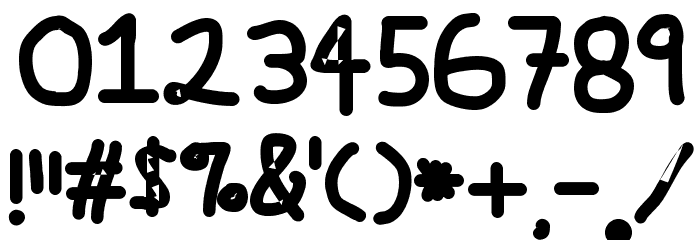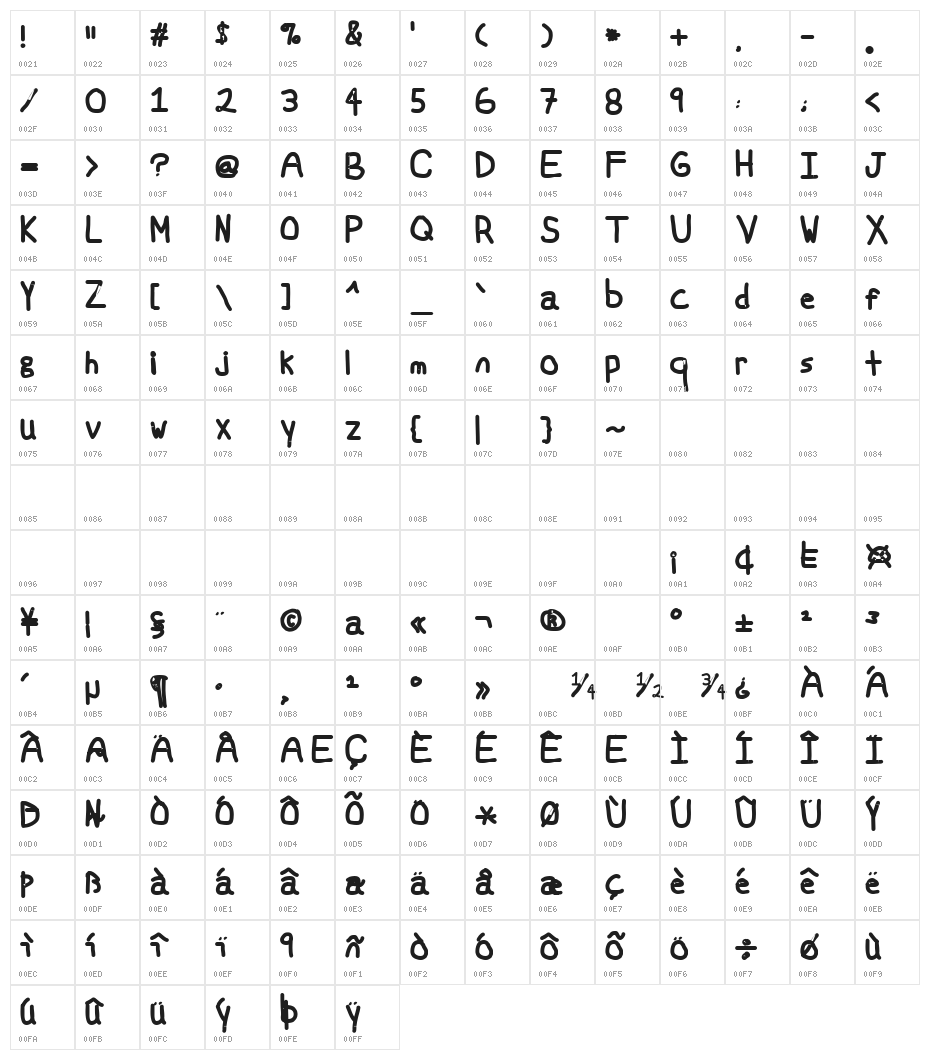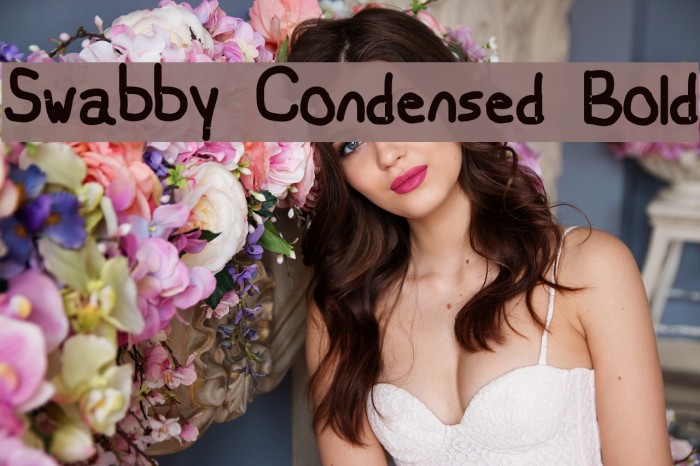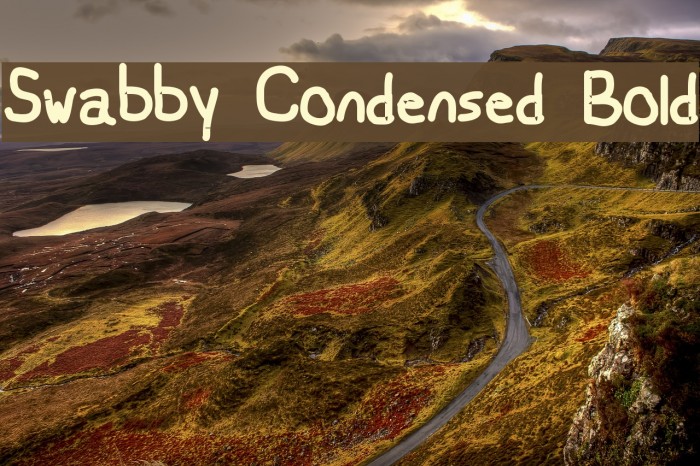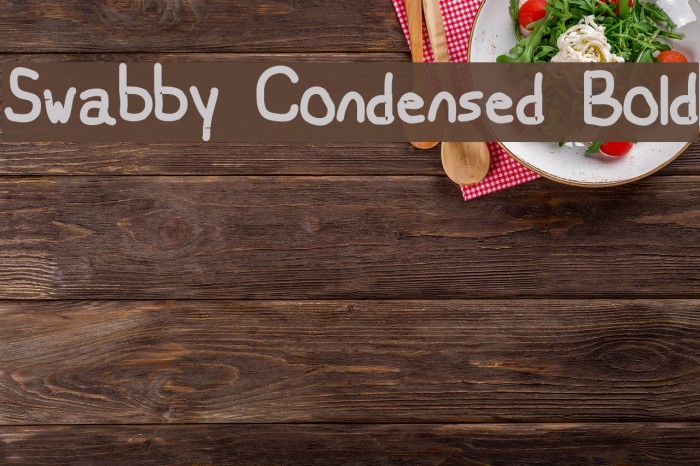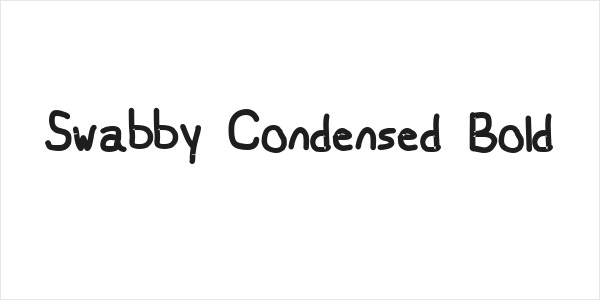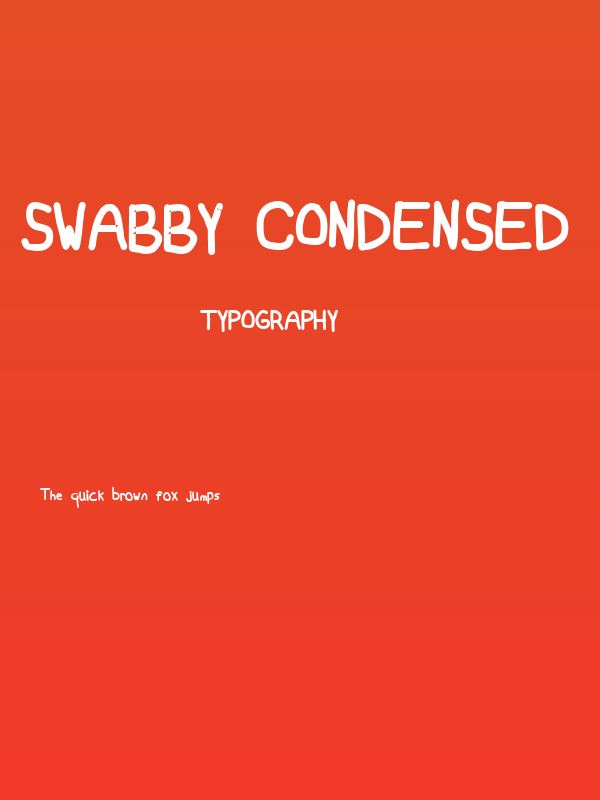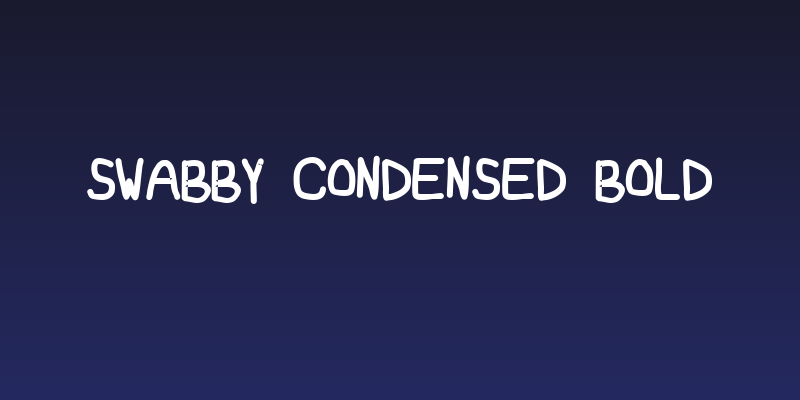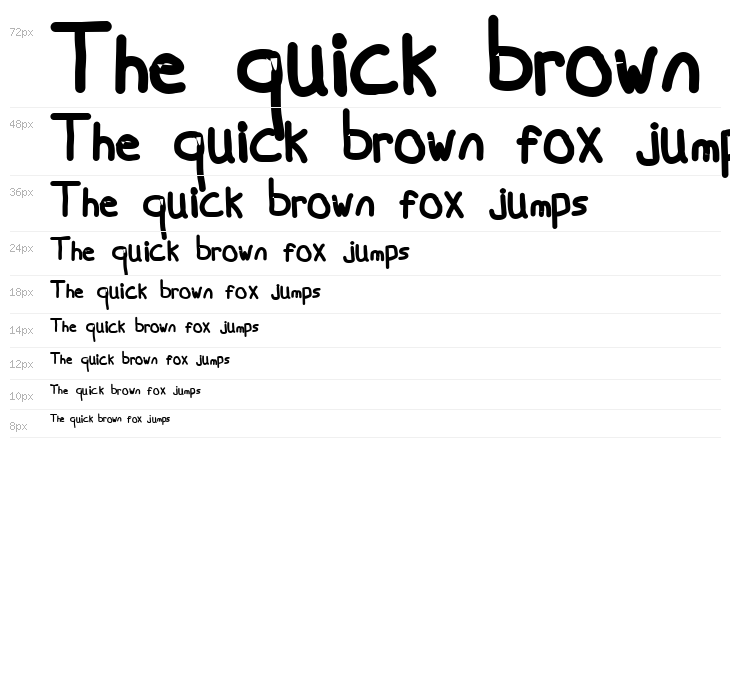
Swabby Condensed Bold Font
Swabby Condensed Bold Description
This font features a playful and bold handwritten style with a condensed structure. The characters are rounded and have a casual, informal appearance, making them approachable and friendly. The uppercase and lowercase letters maintain a consistent style, with a slightly uneven baseline that adds to the hand-drawn aesthetic. The numerals and special characters are designed in the same playful manner, ensuring uniformity across all glyphs. This font is ideal for projects that require a personal touch or a fun, lively vibe.
| Overall Style | Playful, Informal |
| Proposed Projects | Great for children's books, casual invitations, playful branding, and social media graphics. |